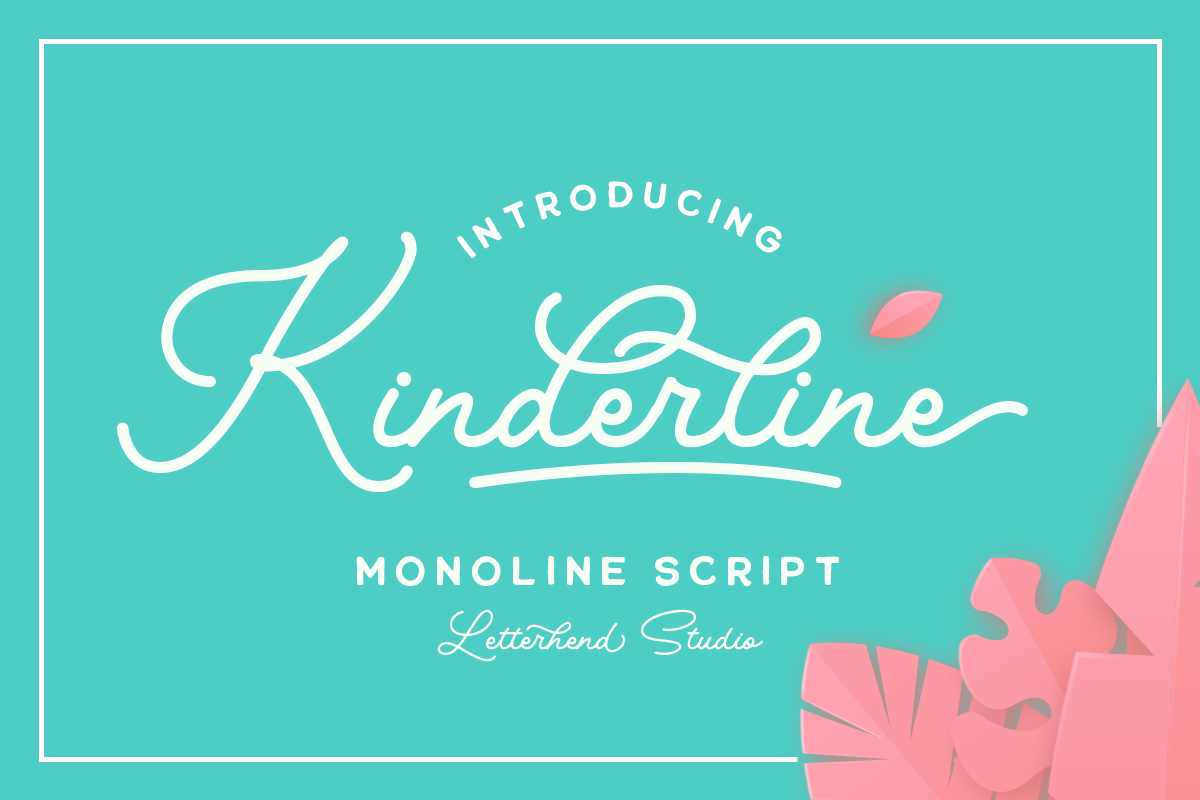
Kinderline Script Font
The Kinderline Script Font is a charming and whimsical typeface that adds a touch of playful personality to any design. With its handcrafted feel and smooth, flowing lines, this font is perfect for projects that need to feel friendly, warm, and authentic. It's an excellent choice for children's books, party invitations, greeting cards, and branding for creative small businesses. The Kinderline Script Font also works wonderfully for social media graphics and personalized gifts, where a touch of handwritten charm can make all the difference. Its approachable style makes it a valuable asset for any project aiming to connect with an audience on a personal and heartfelt level.
What makes the Kinderline Script Font so exciting is its delightful and unpretentious character. It captures the essence of genuine handwriting, with a natural flow that feels both spontaneous and beautifully crafted. This font isn’t just about displaying text; it’s about conveying a sense of joy and creativity. Its irregular baselines and varying letter connections give it an organic feel that stands out from more rigid typefaces, ensuring your designs are memorable and full of life. The Kinderline Script Font is a tool for expressing emotion, making it a powerful choice for anyone who wants to create designs that feel personal and genuine.
The Kinderline Script Font family is typically rich with features that give designers extensive creative control. It often includes a full set of uppercase and lowercase letters, numbers, and punctuation. The font truly shines with its numerous ligatures and swashes, which allow you to create seamless connections and add elegant flourishes to your text. These stylistic alternates provide the flexibility to customize your typography, making every design feel unique and hand-lettered. This versatility ensures that you can use the font for everything from a simple headline to a more intricate design layout, all while maintaining its charming personality.